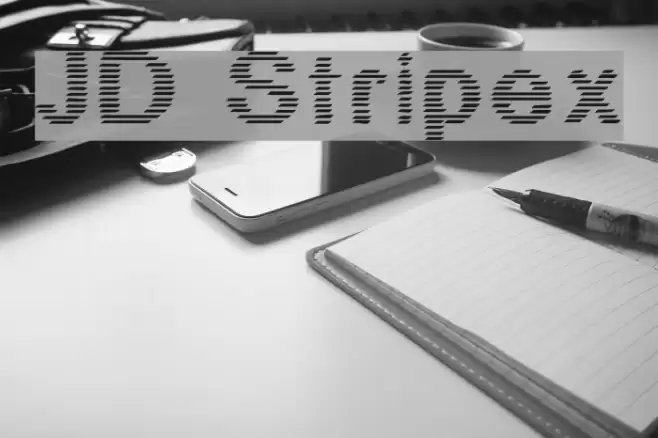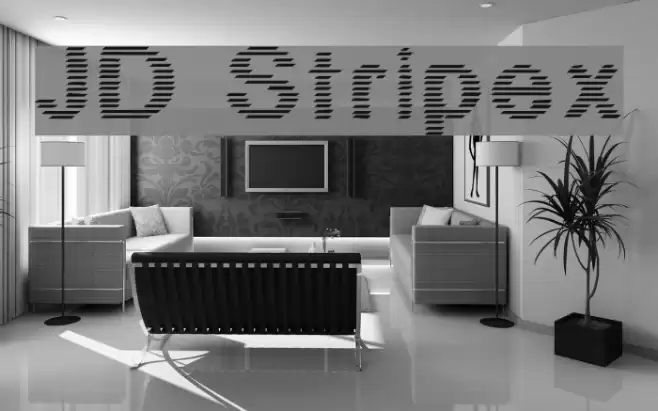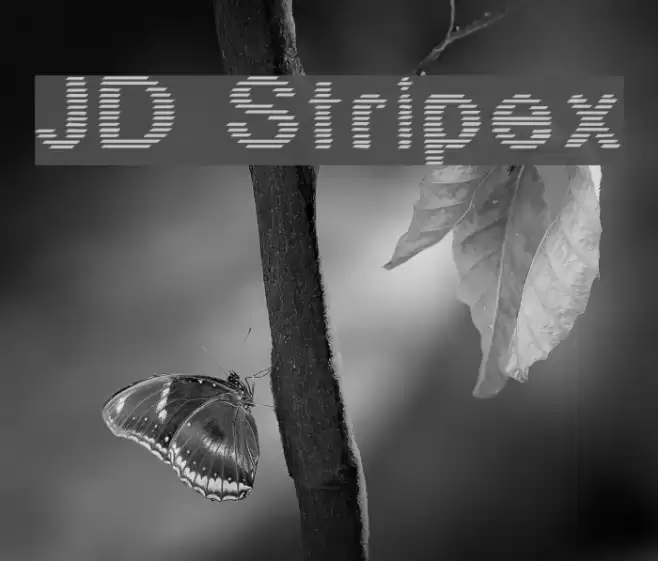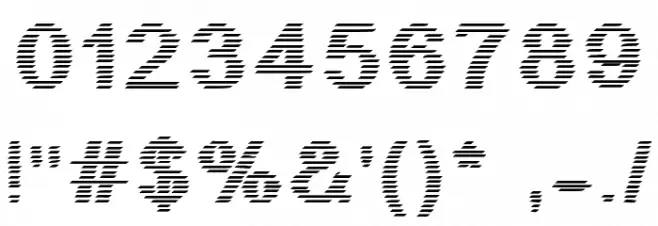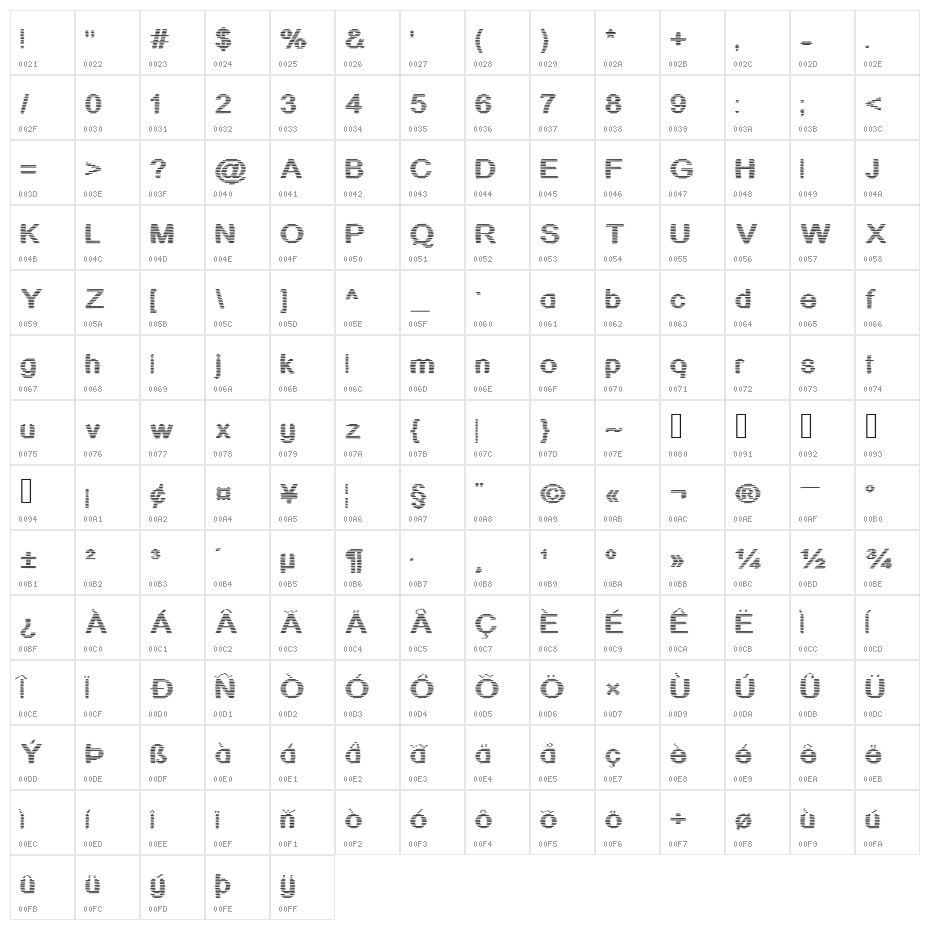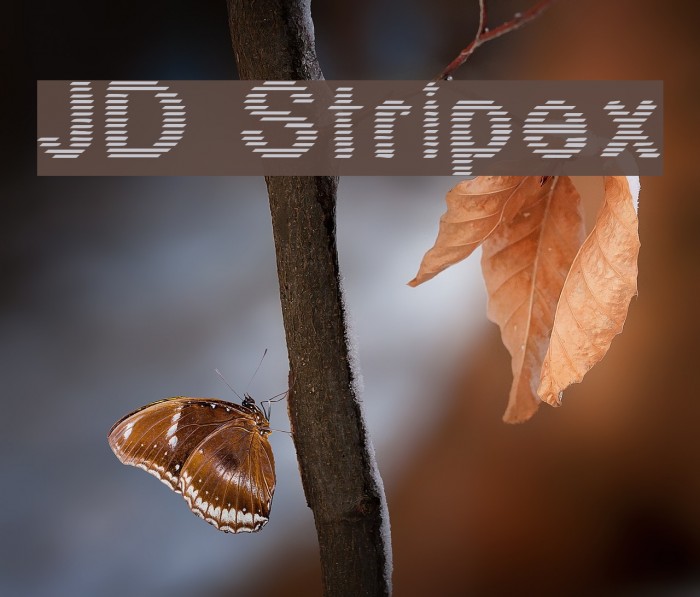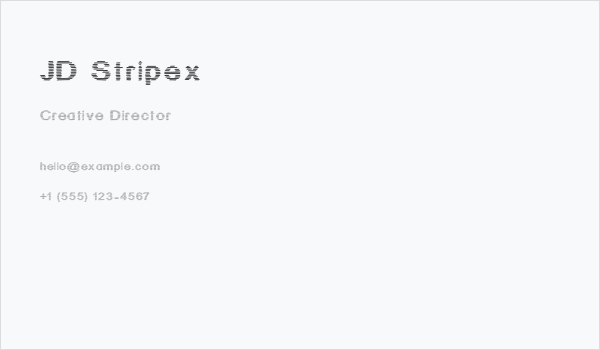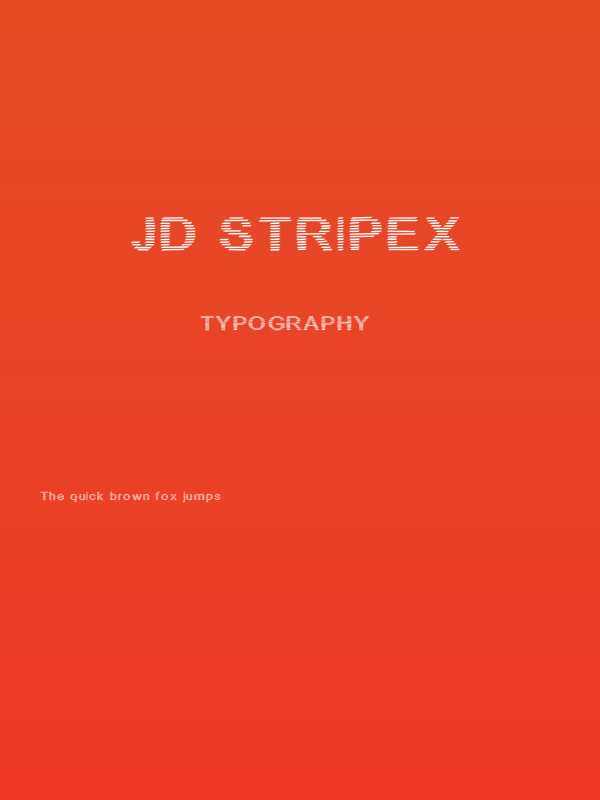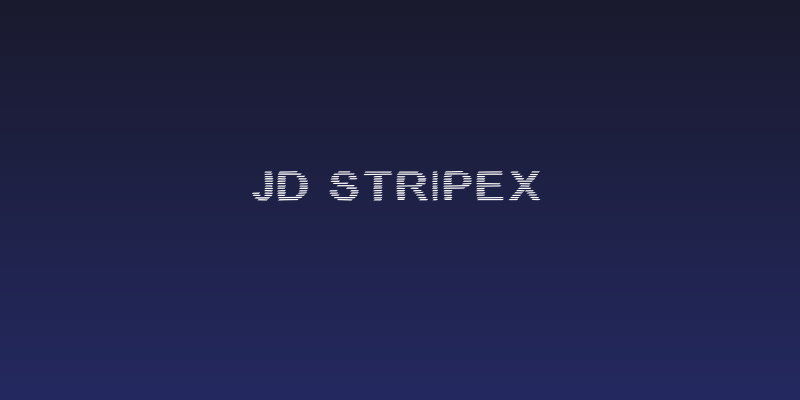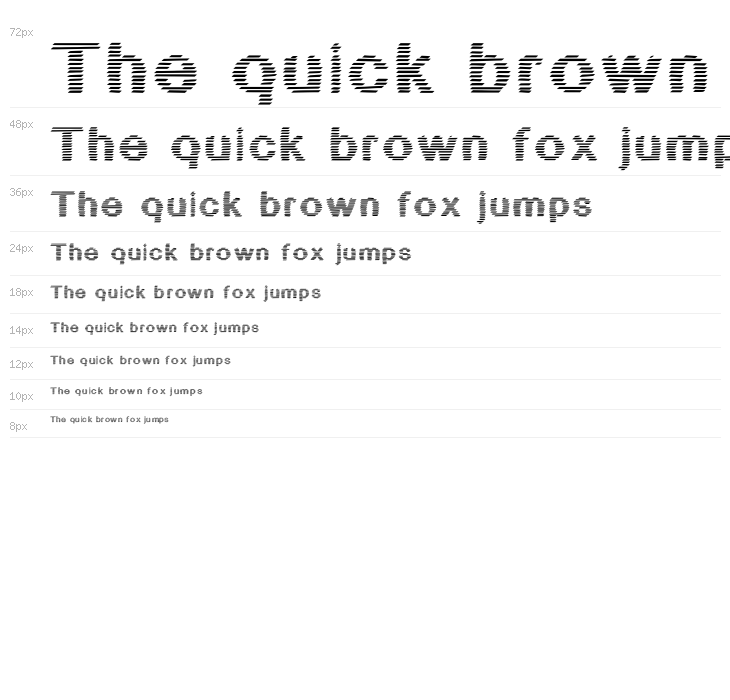
JD Stripex Font
JD Stripex Description
This font features a unique striped pattern across each character, creating a dynamic and eye-catching effect. The uppercase and lowercase letters, as well as numbers and special characters, are all designed with horizontal lines that give a sense of movement and modernity. The overall appearance is bold and striking, making it ideal for projects that require a strong visual impact. The font's design is both decorative and functional, suitable for a variety of creative applications.
A bold, striped font with a modern and dynamic appearance from Uncategorized fonts.
- Proposed Projects: Ideal for branding, advertising, posters, and any design project that requires a bold statement.